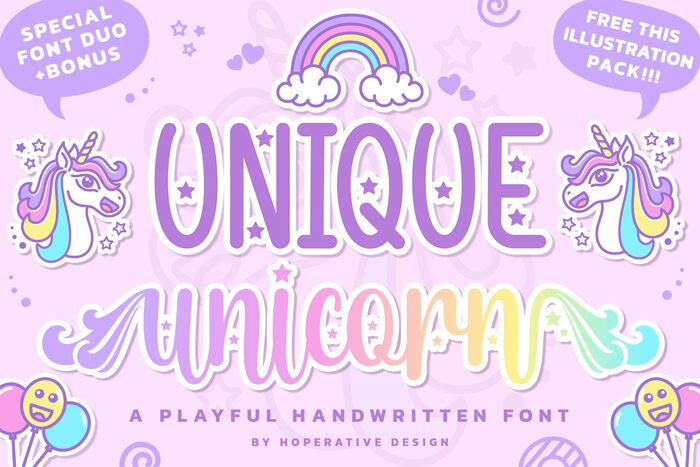
The Unique Unicorn Display font, designed by Hoperative, is an enchanting addition to your creative projects. With its decorative style and semi-light weight, this font adds a touch of whimsy and elegance. Its condensed width makes it perfect for headlines, logos, and any design that requires a unique flair. Whether you're working on a children's book cover, a magical event invitation, or an imaginative website layout, the Unique Unicorn Display font will bring your creations to life with its distinct charm and legibility. Let your imagination run wild with this delightful typeface!